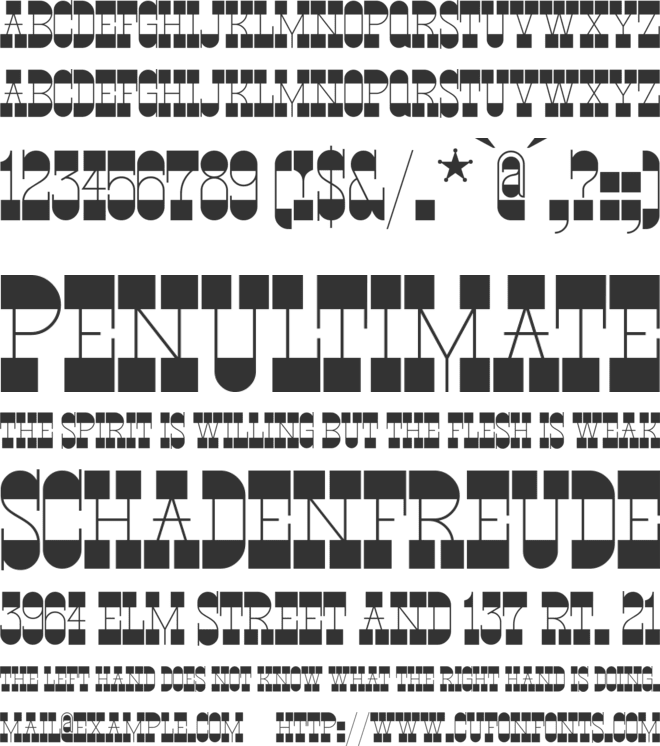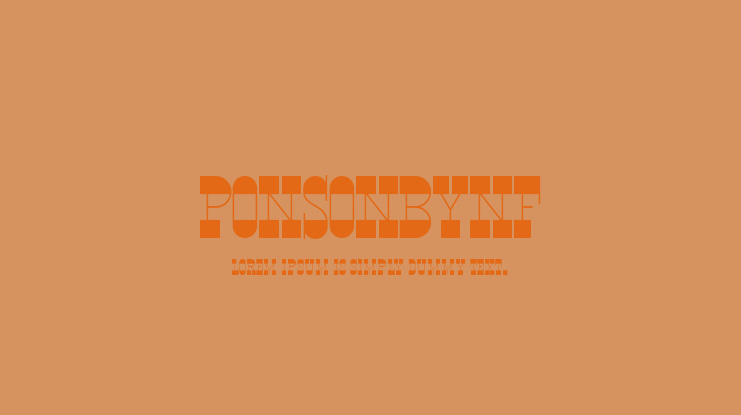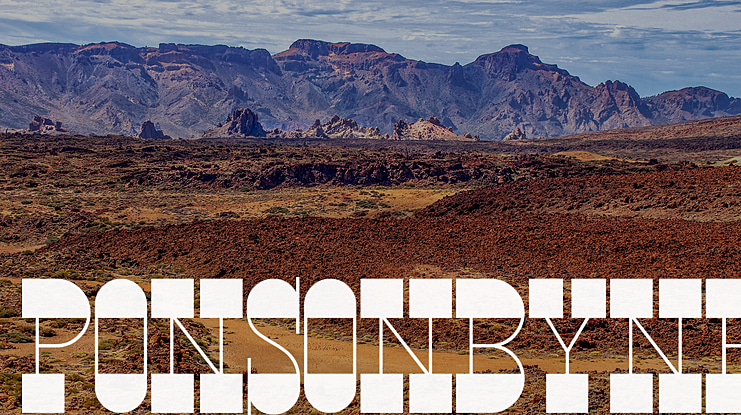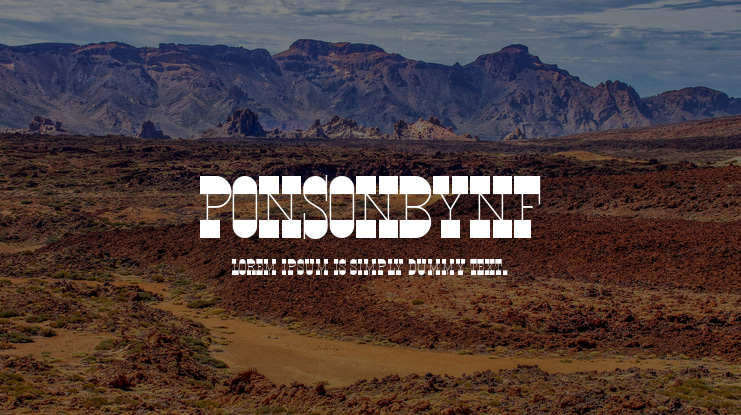
PonsonbyNF Font
Nick Curtis
When I saw Rick Griffin’s psychedelic poster for a Motherload concert, circa 1968, the first thing I was reminded of was the titles for Fractured Fairy Tales, a regular feature on the Rocky & Bullwinkle show. Accordingly, I named this fun face after the show’s fictitious executive producer, Ponsonby Britt.